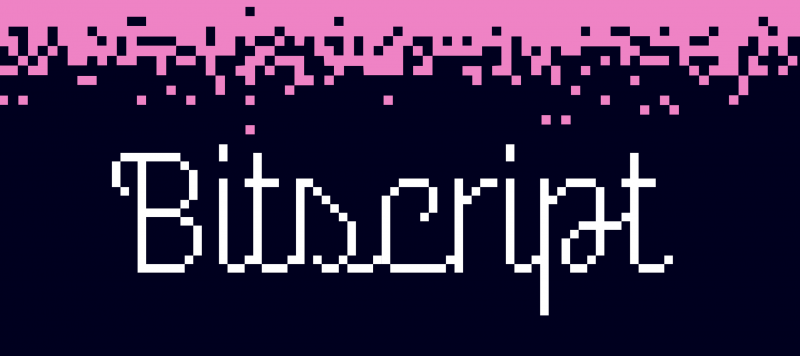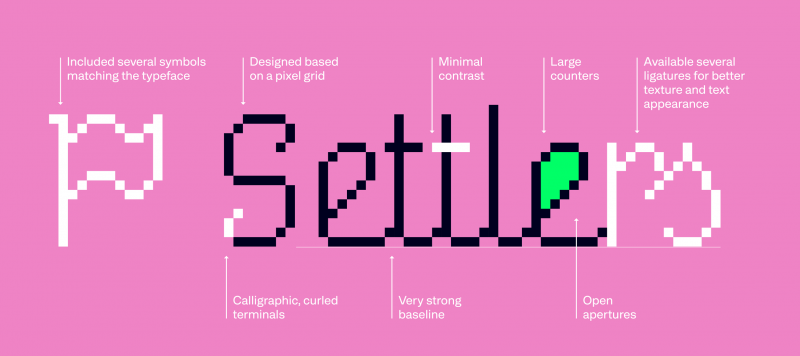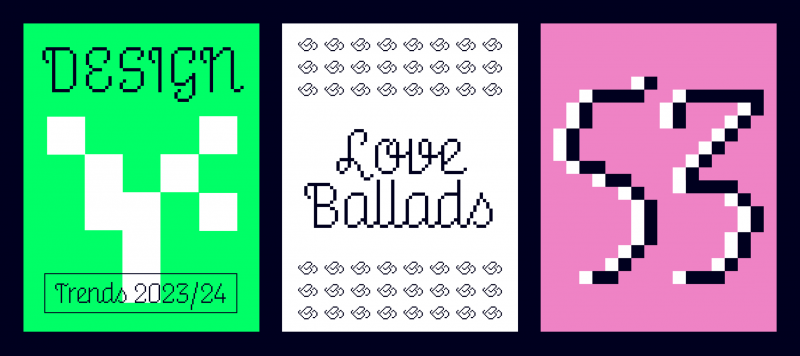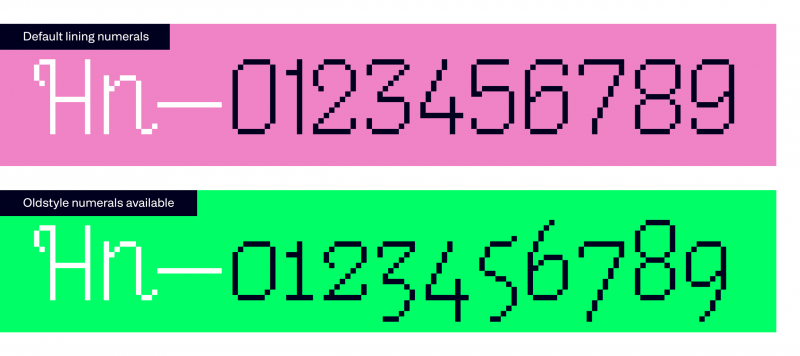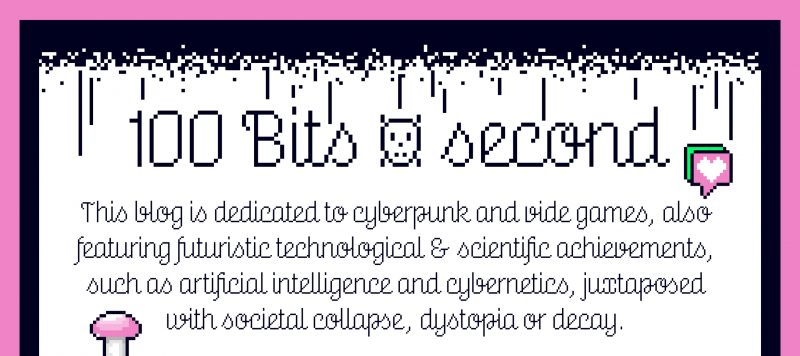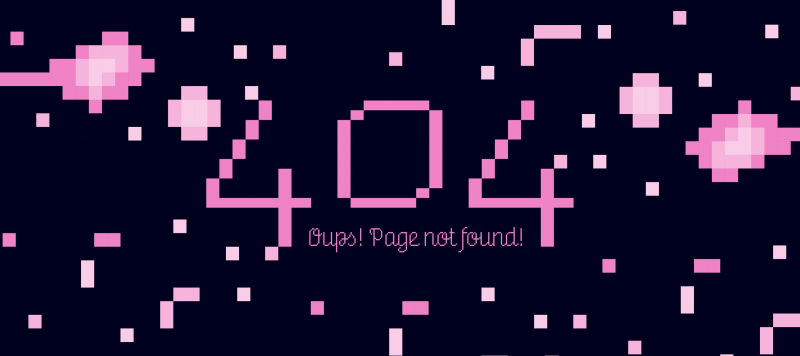
Bitscript is a “bitmap style” script typeface. Formally speaking, its letterforms are upright in style, and each letter connects to the one that follows. Bitscript is unique because it is not just a script font but a “bitmap script” font, which looks pretty refreshing even several decades into digital design. All characters in the typeface have been designed entirely with bitmap-style elements. Several OpenType features help to ensure that this bitmap-style upright script actually looks reminiscent of fine handwriting. For instance, Bitscript includes a lot of ligatures. These will all be on by default as long as you are working in an application that automatically supports the OpenType ligature feature, or allows you to activate it yourself. The ligatures remove any problematic connections that might otherwise occur in certain letter pairs, enabling this digital-aesthetic design to still have all letters in a word connect. Two Stylistic Sets include diverging connecting options of the letter s – which in and of itself is probably the most “script-style” letter in the Bitscript typeface. Finally – via another OpenType feature – users can substitute oldstyle figures for lining figures if they prefer them.
Family Name | Bitscript |
Classification | Script |